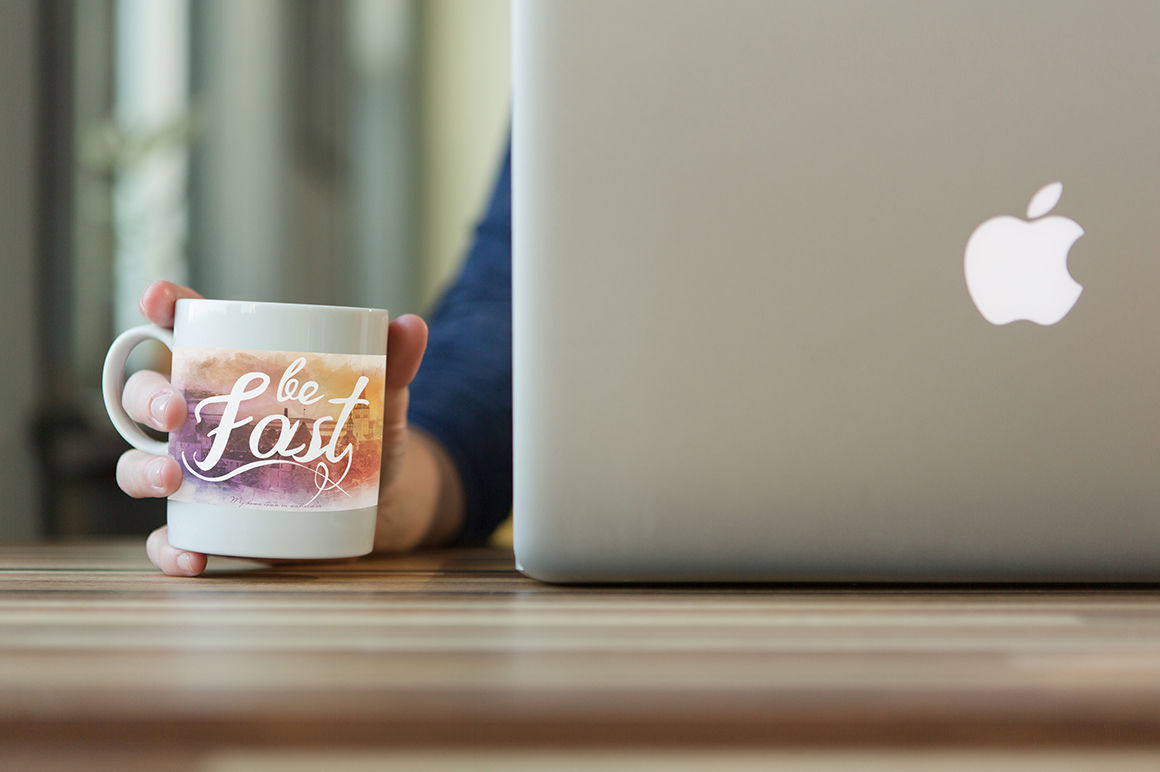
Trouble Script Font and Swashes
Create your own brand this font. In addition, the construction of logo, magazine covers, you can use any case you want to sign in and print. Font typography in a consistent fashion. You can create your logo, your own brand. You want an invitation letter for special occasions can be seen perfectly. As stated in the presentation of a beautiful cover of the book cover can be created. When opening your new sign in a café, a shop opening modification you want to make your beautiful handwriting appealing to the eye lid on the product you want to promote. Handmade beautiful work, some private letters of the decorations are available. Enjoy :)